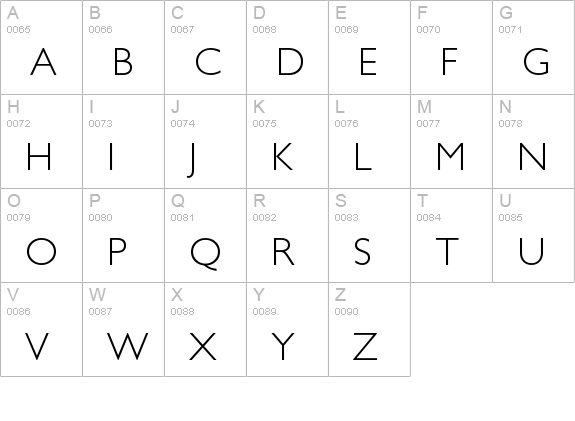
PetitaLight is a captivating and elegant font that effortlessly blends sophistication with a touch of playfulness. Its slender and delicate letterforms exude a sense of refined beauty, making it the perfect choice for projects that require a touch of grace and charm. This font's graceful curves and subtle details lend themselves to a variety of design applications. Whether you're designing a wedding invitation, a logo, or a blog header, PetitaLight will add a touch of sophistication and elegance to your work. What sets PetitaLight apart is not just its exquisite design, but also its accessibility. This font is freely available to download at FontsMarket.com, making it accessible to designers of all levels. Whether you're a professional graphic designer or a hobbyist, you can enjoy the beauty and versatility of PetitaLight without any restrictions. With its smooth lines and balanced proportions, PetitaLight is a font that effortlessly catches the eye and leaves a lasting impression. Its timeless appeal and versatility make it a go-to choice for a wide range of design projects. So, if you're looking for a font that combines elegance with a touch of playfulness, look no further than PetitaLight. Download it for free at FontsMarket.com and elevate your designs with its timeless beauty and charm.